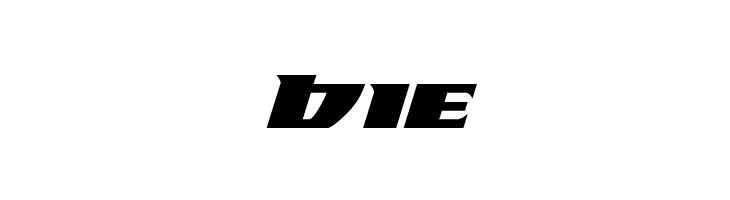
• Miami Regular
A bold, slanted font with a modern, dynamic style.
• Nubian Shadow
A bold, shadowed font with a modern and decorative style.
• Nubian Regular
A bold, modern font with thick strokes and wide characters, perfect for impactful headlines.
• Tannenberg Bold
A bold, angular Blackletter-style font with strong vertical emphasis.